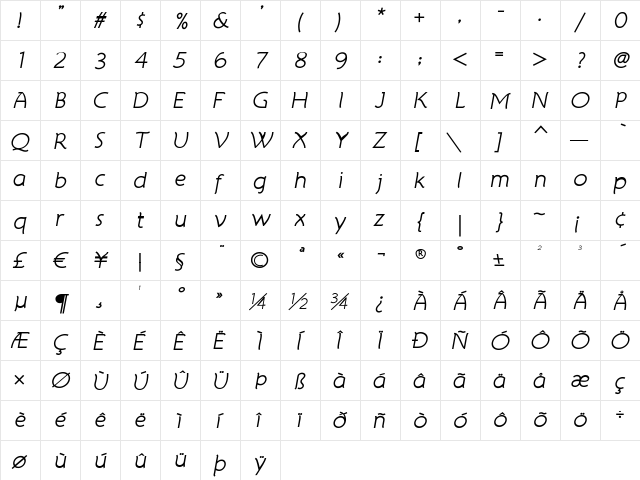
AtelierSansBookItalic Regular
Design Context for AtelierSansBookItalic Typeface
AtelierSansBookItalic takes a measured approach to typography — its balanced proportions and neutral character make it a reliable workhorse for both digital and print work. The dynamic lean of this cut emphasises speed and emphasis in any layout.
Pro Tip: Use AtelierSansBookItalic for emphasis, pull quotes, and subheadings where its slanted energy can add rhythm to the layout.